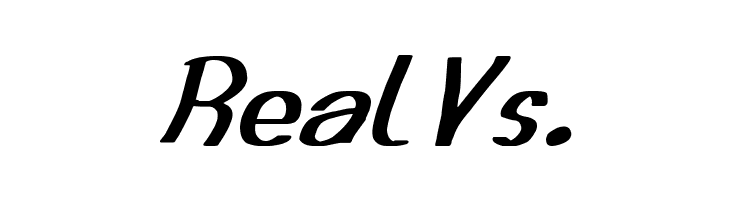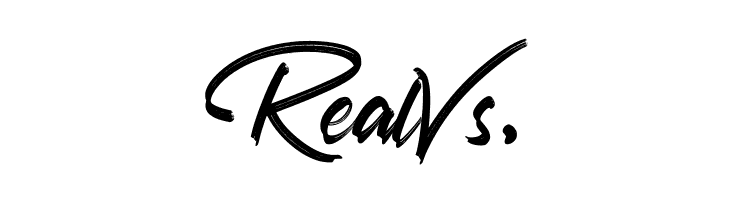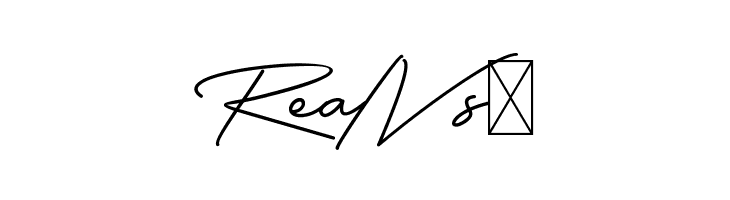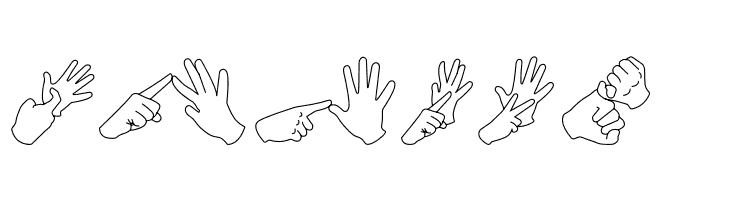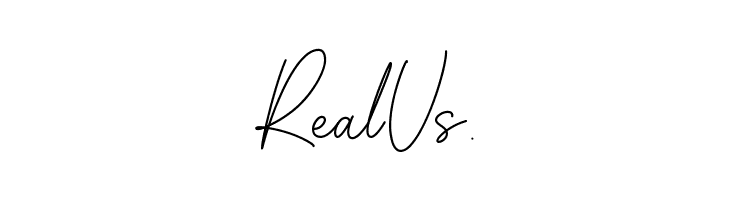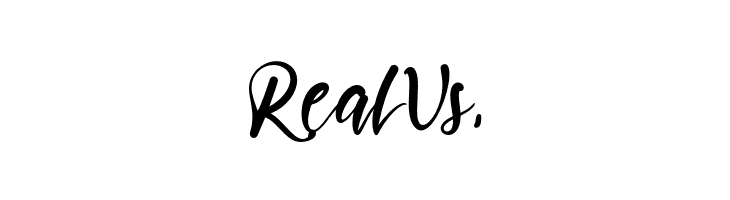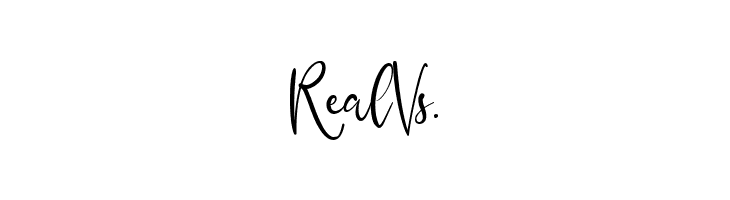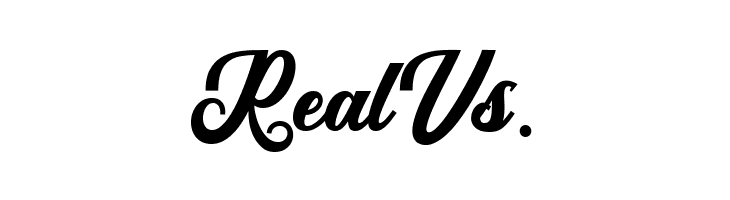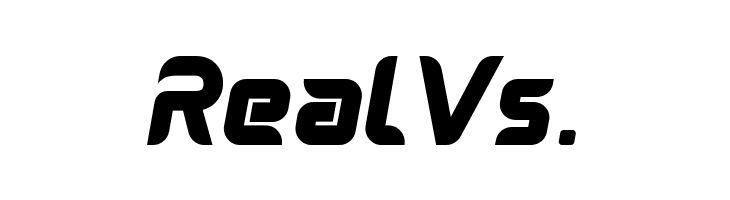
A clean, modern sans-serif font with a minimalist design.
A clean, modern font with uniform stroke width and excellent readability.
A modern sans-serif font with clean lines and a professional appearance.
Minimalist line-art font using hand shapes for each character.
A dynamic script font with elegant curves and medium contrast.
A flowing, cursive font with elegant loops and curves.
A lively, flowing script font with elegant cursive letters and intricate loops.
An elegant script font with smooth, flowing strokes and a cohesive cursive style.
A flowing, elegant script font with high contrast and interconnected letters.
A bold, expressive brush-style font with dynamic strokes.
A dynamic and flowing script font with elegant curves and a slight slant.
A bold, dynamic font with a futuristic and sporty style.
A bold, expressive script font with flowing, cursive letterforms.
A dynamic and elegant script font with a modern touch.
A bold, dynamic script font with expressive strokes and lively character.
A bold, dynamic script font with sweeping strokes and a casual elegance.
A playful, bold font with rounded strokes and smooth curves.
A playful, paw-print adorned font with a whimsical, hand-drawn style.
A playful, connect-the-dots style font with a whimsical, hand-drawn appearance.
A modern, elegant handwritten font with fluid, cursive letterforms.
A dynamic, cursive handwritten font with fluid strokes and connected letters.
A fluid and elegant handwritten script font with a modern touch.
Bold, playful handwritten font with a festive, casual vibe.
A playful, bold script font with a handwritten style.
A fluid, handwritten font with a casual and personal touch.
An elegant script font with flowing, cursive letterforms and a sophisticated style.
An elegant and flowing script font with graceful curves and bold flourishes.
A flowing, cursive font with elegant, sweeping strokes and decorative flourishes.
A delicate and elegant script font with a handwritten appearance.
A flowing, handwritten font with a casual elegance and natural feel.
A bold, dynamic handwritten font with fluid and expressive strokes.
An elegant and sophisticated cursive script font with ornate uppercase and smooth lowercase letters.
A playful, bold font with a hand-drawn, distorted style.
A decorative font with geometric shapes and angular serifs, ideal for artistic projects.
A bold, decorative font with tall, narrow characters and unique serifs.